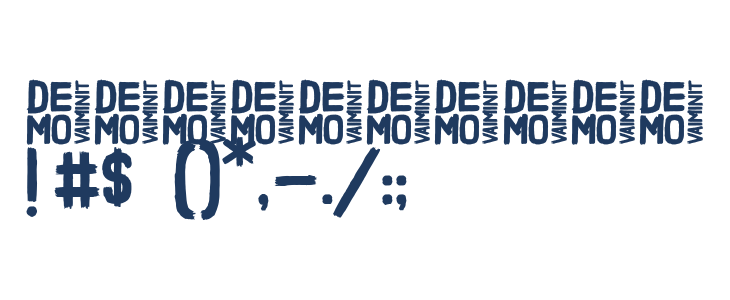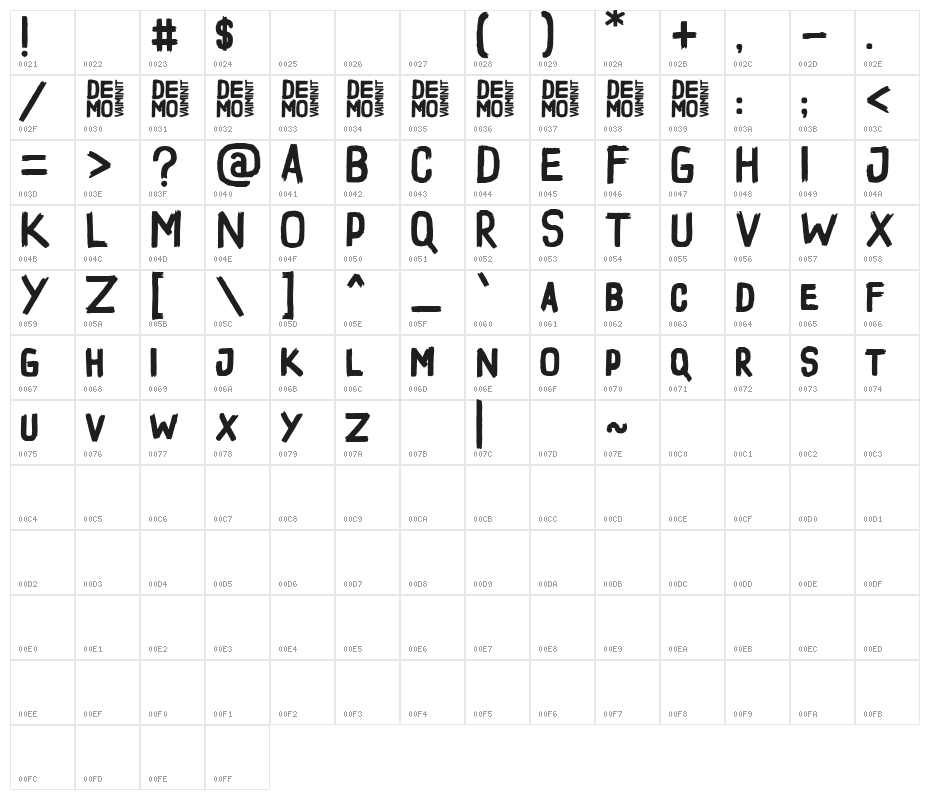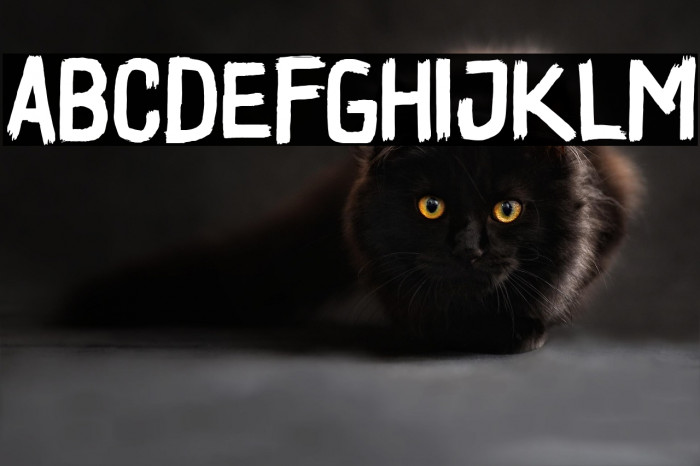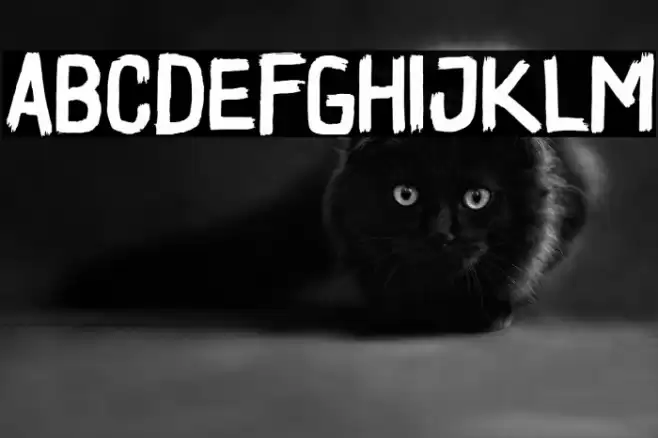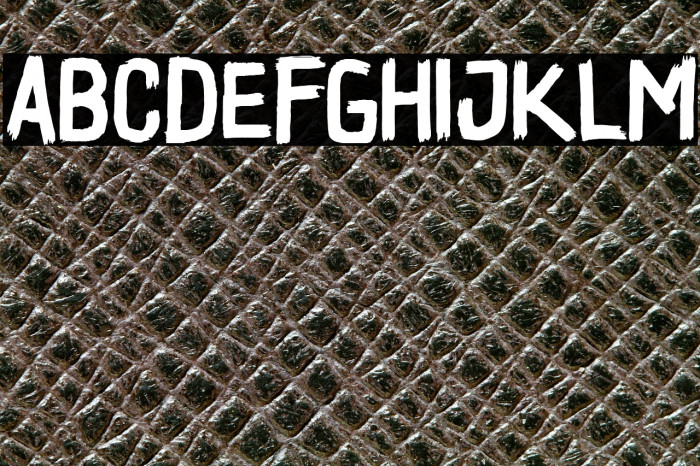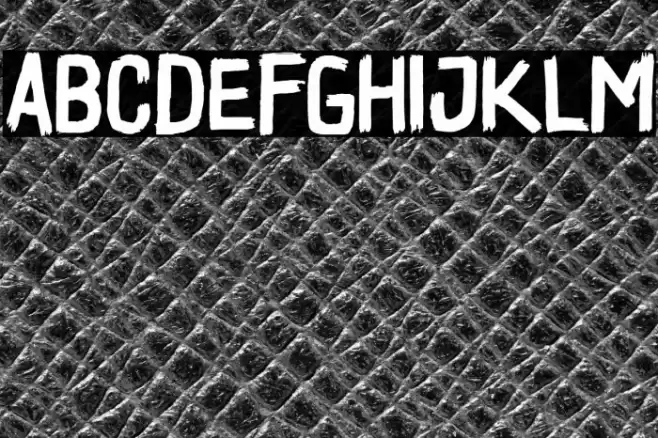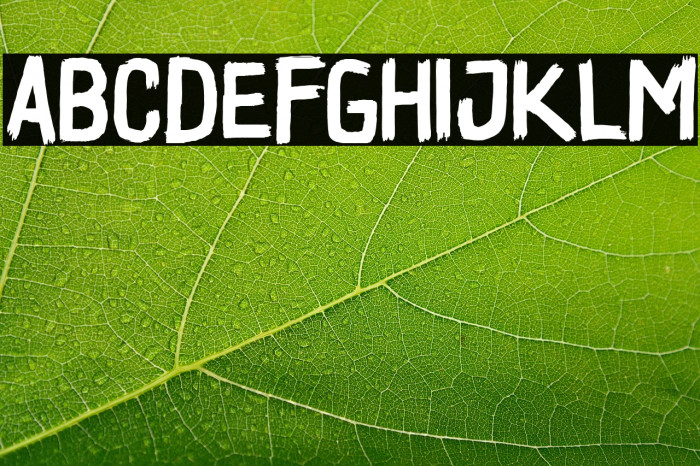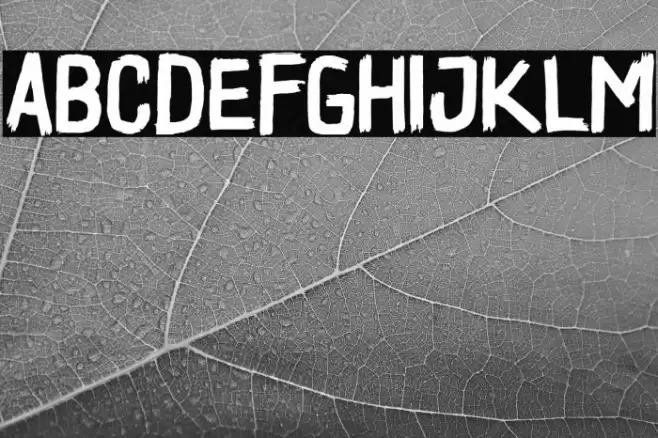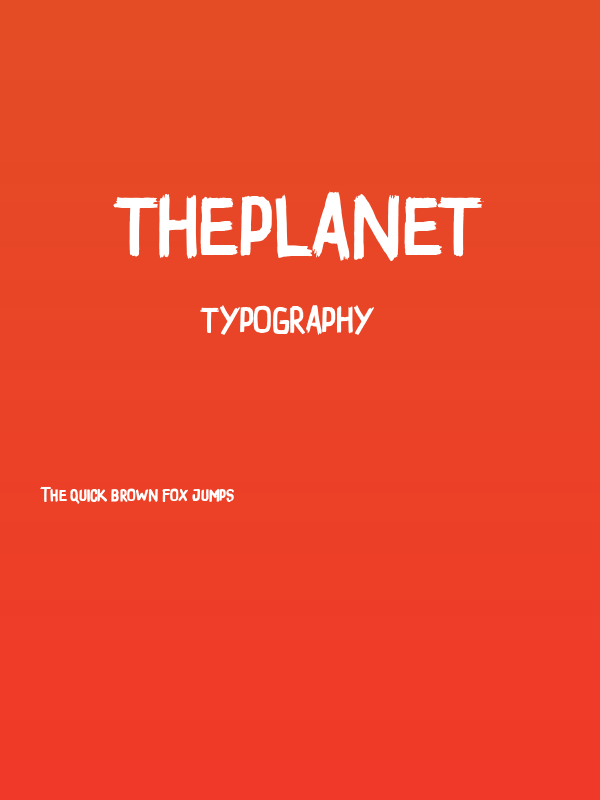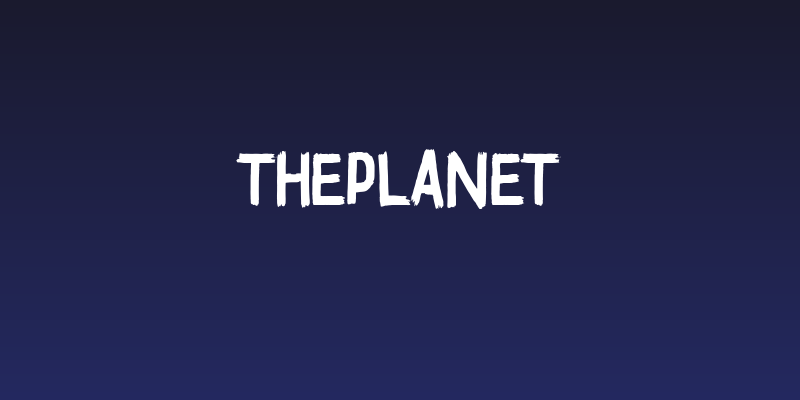
ThePLANET Font
ThePLANET Description
This font exhibits a bold and expressive style with a hand-drawn appearance. The characters are irregular and dynamic, giving a sense of movement and energy. The strokes are thick and uneven, adding a raw and artistic feel. The uppercase letters are prominent and impactful, while the lowercase letters maintain the same boldness. The numbers and special characters are consistent with the overall style, ensuring a cohesive look. This font is ideal for projects that require a strong visual impact and a creative touch.
Proposed ProjectsPerfect for posters, album covers, branding, and any creative project that needs a bold statement.